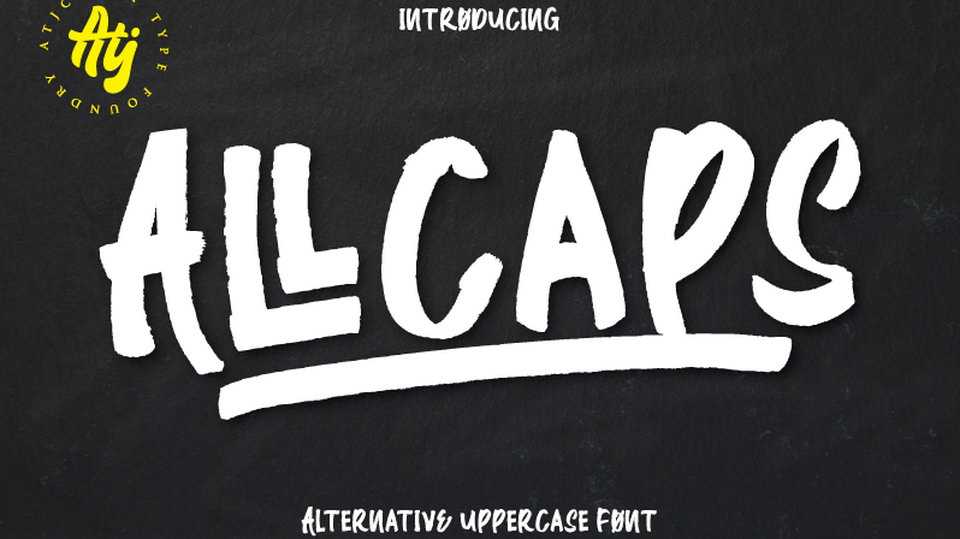
Download Allcaps font – a bold and strong hand lettered display typeface. It is great for crafted design, labels, headlines, posters and more.
Designer: Atjcloth Studio